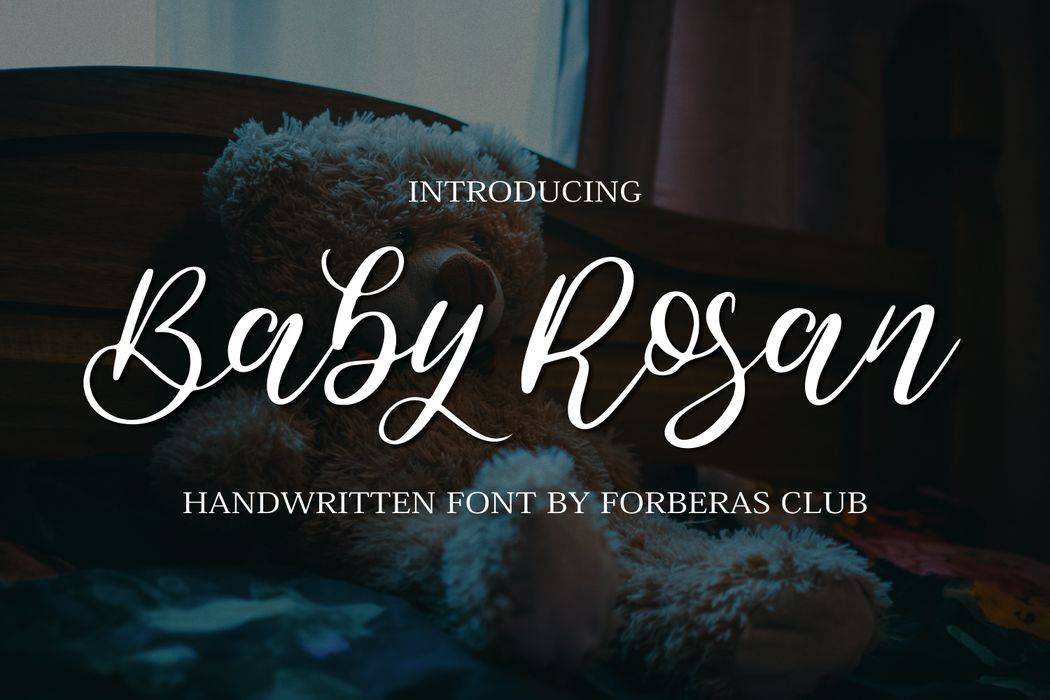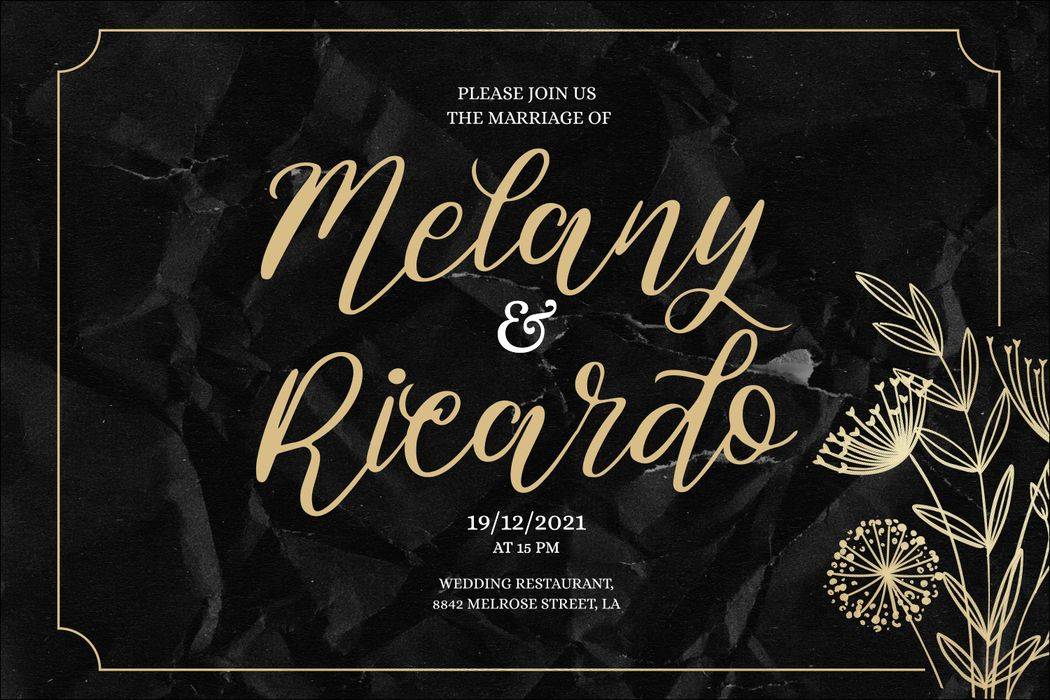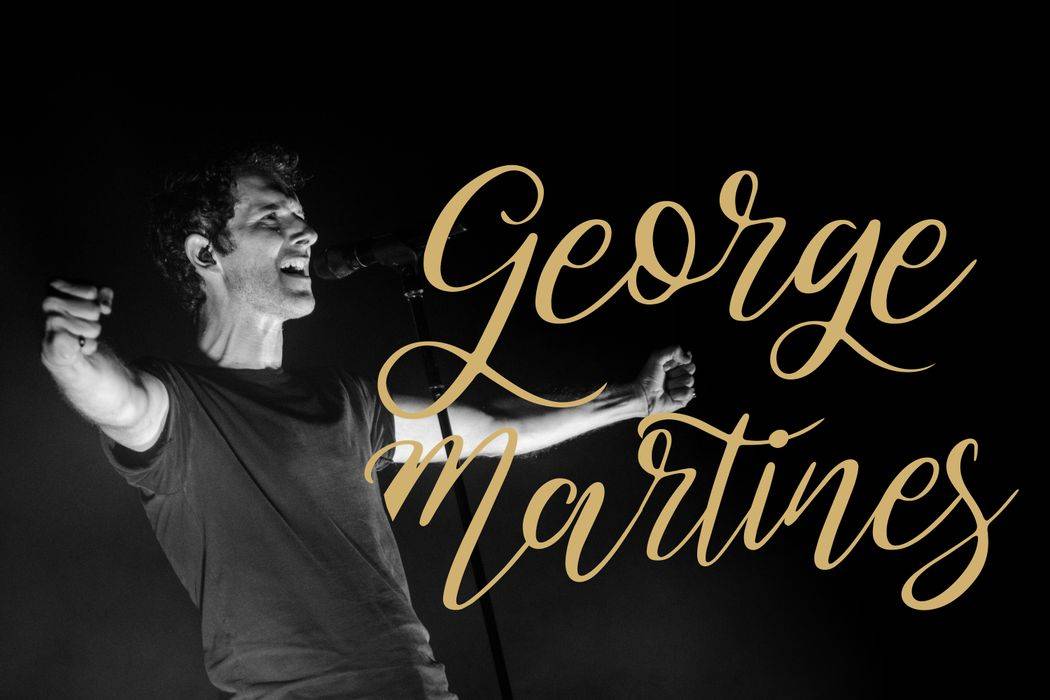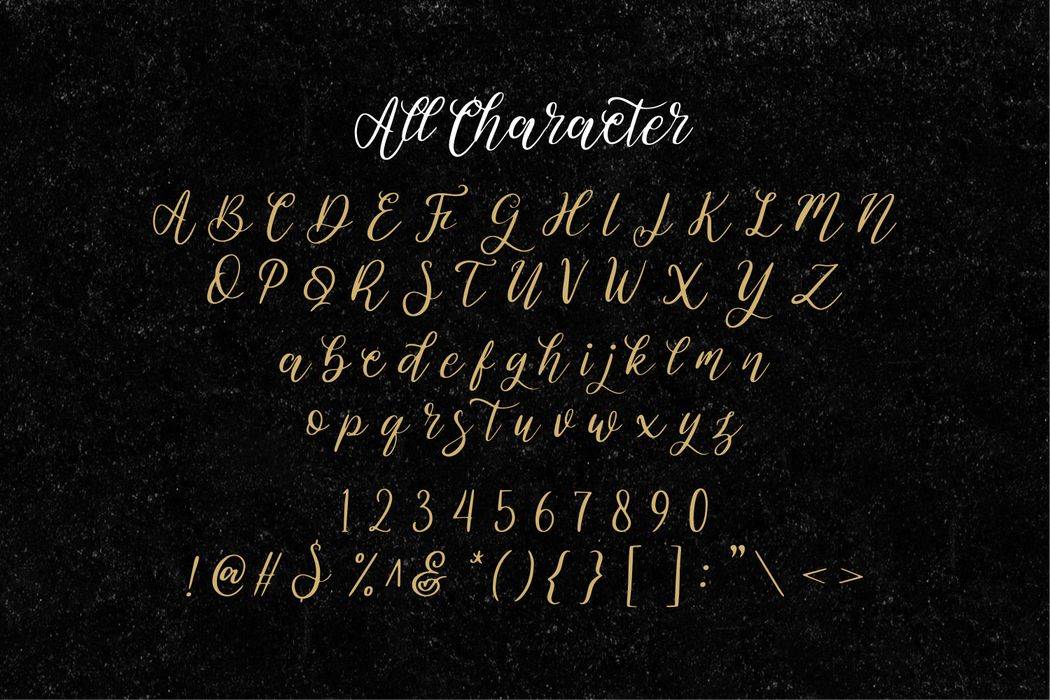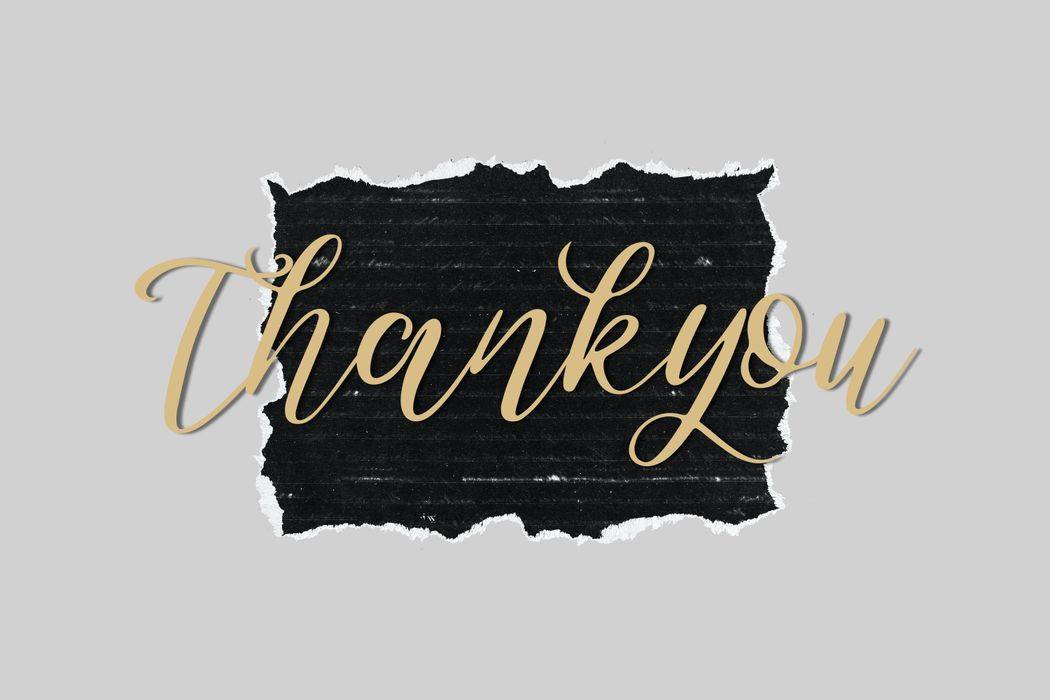
Baby Rosan is a graceful script font with elegant, flowing letterforms that combine thin and delicate strokes with subtle flourishes. Its handwritten style evokes a sophisticated and romantic feel, making it ideal for invitations, branding, and decorative uses where a touch of charm and refinement is desired. This font works beautifully in projects that require a personal and stylish expression, such as wedding stationery, logos, and boutique packaging.
Baby Rosan Font
About Baby Rosan Font
| Font family | Baby Rosan Font |
| Designer | Forberas Club |